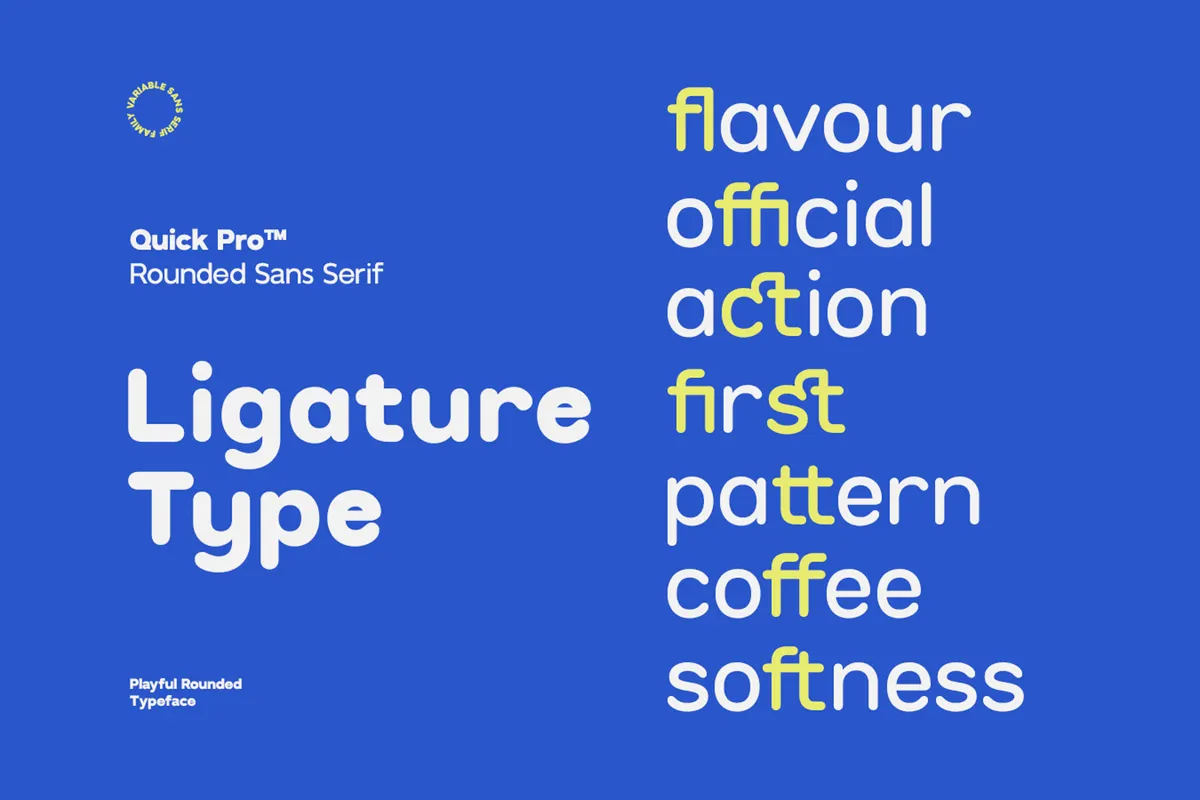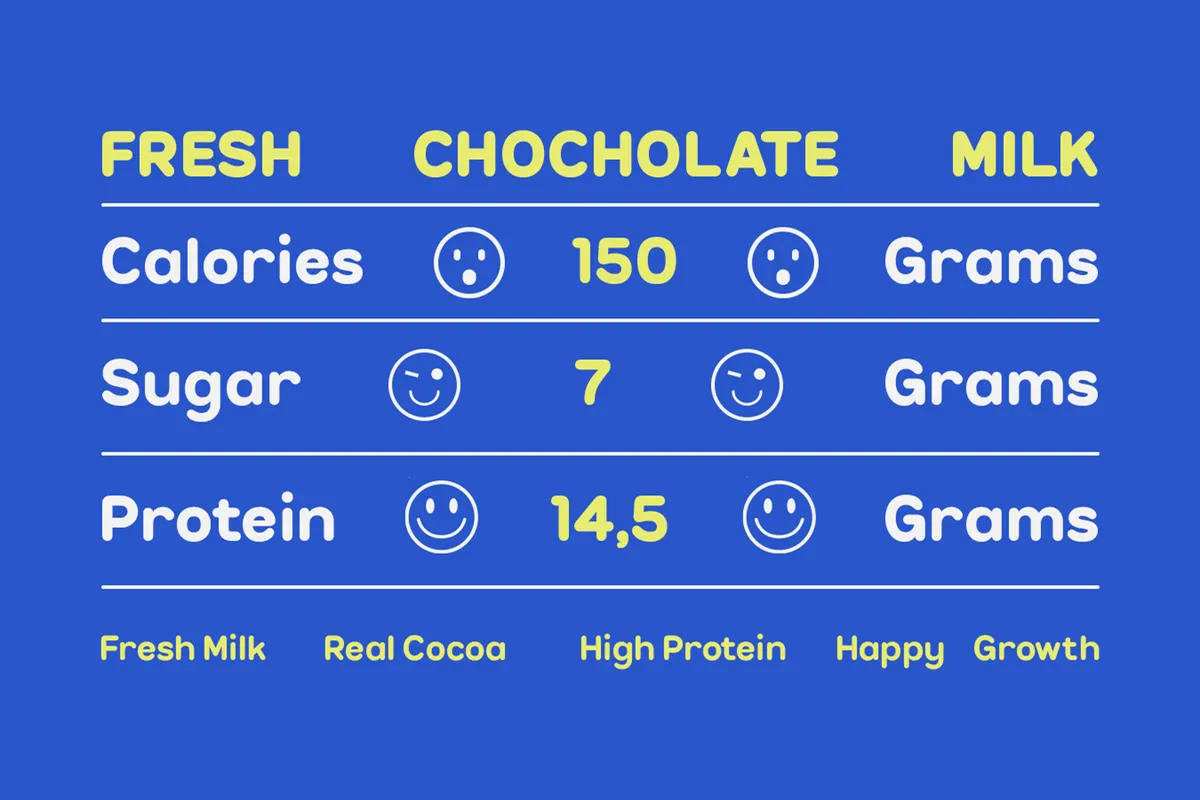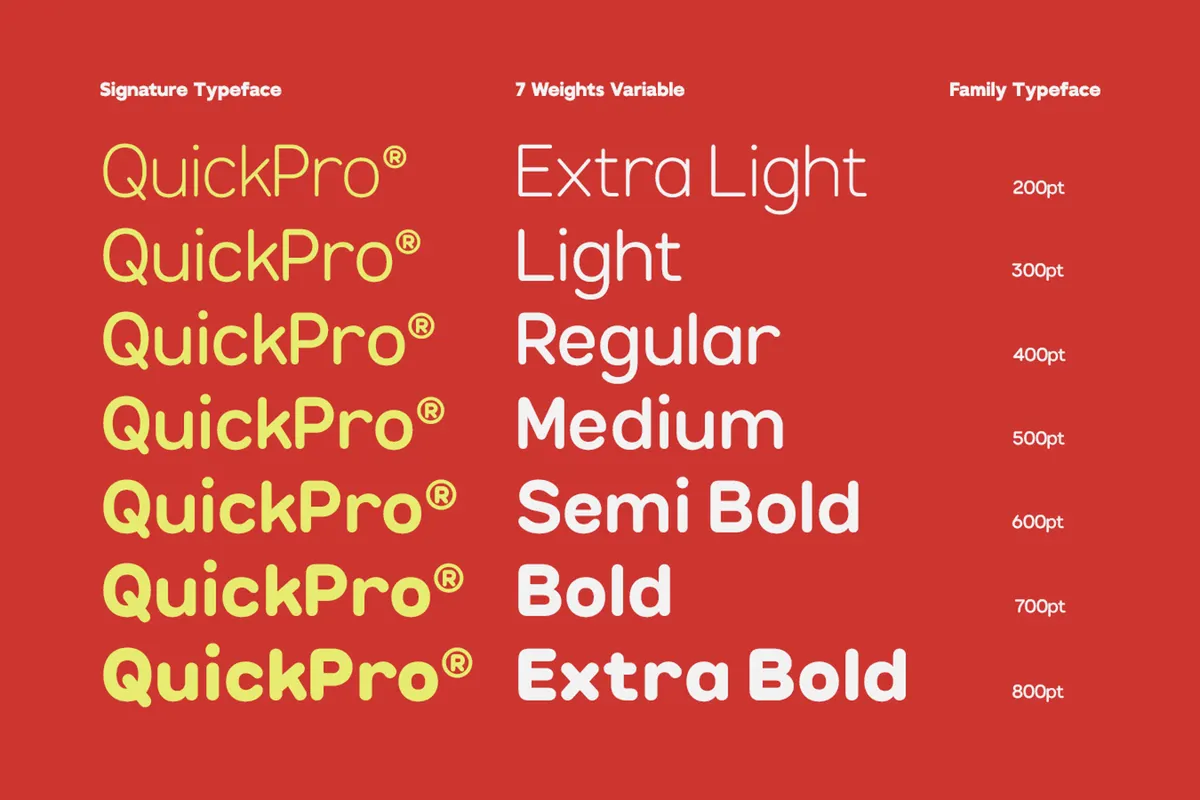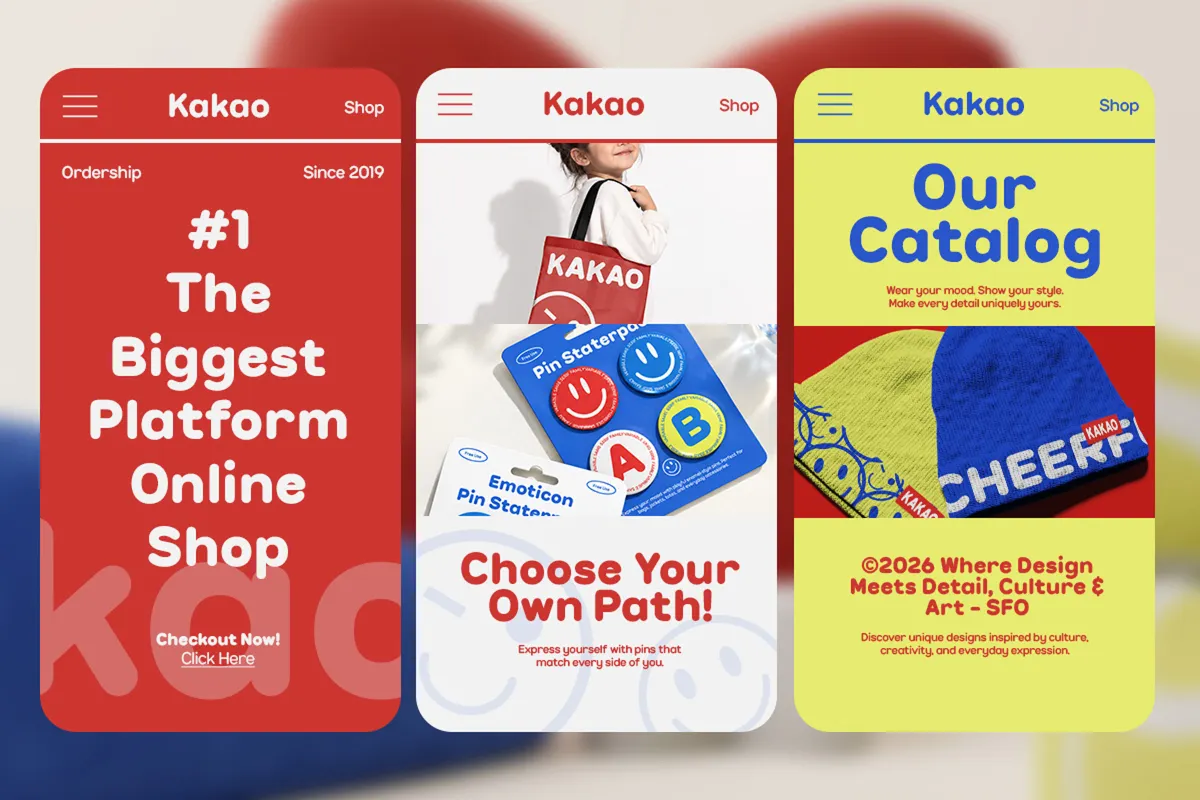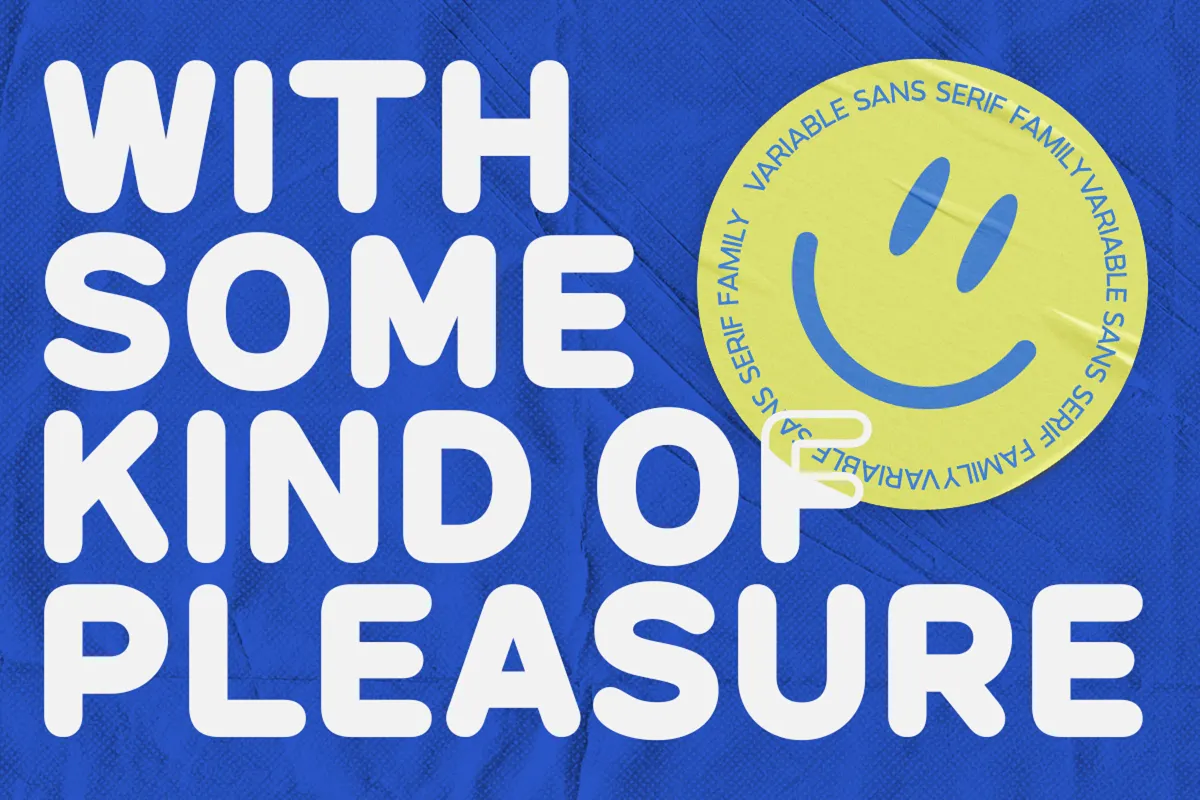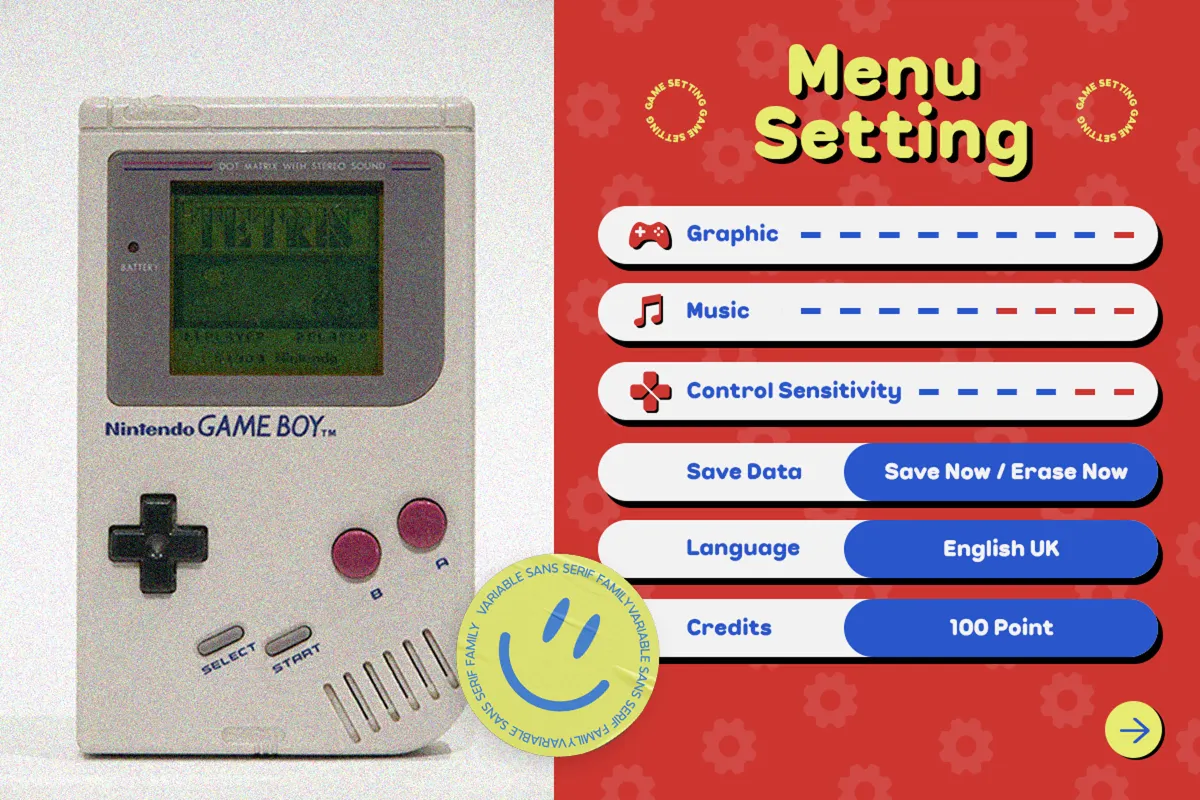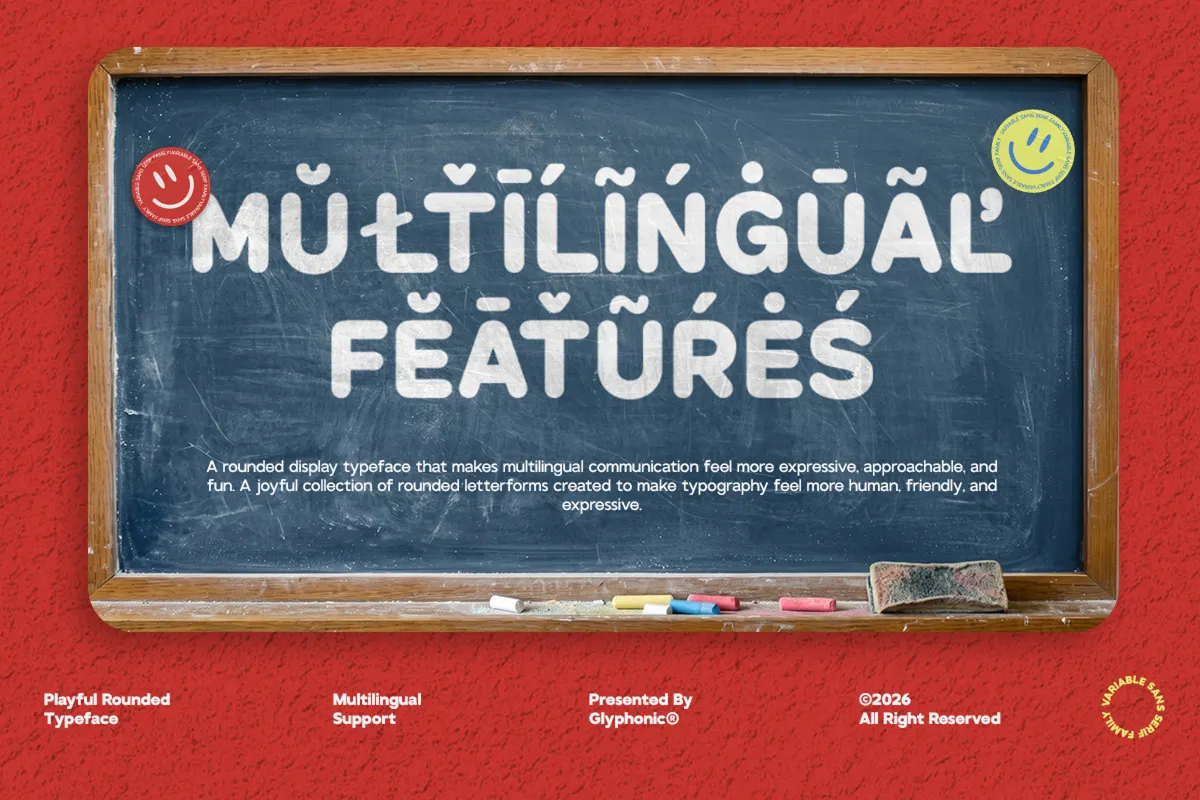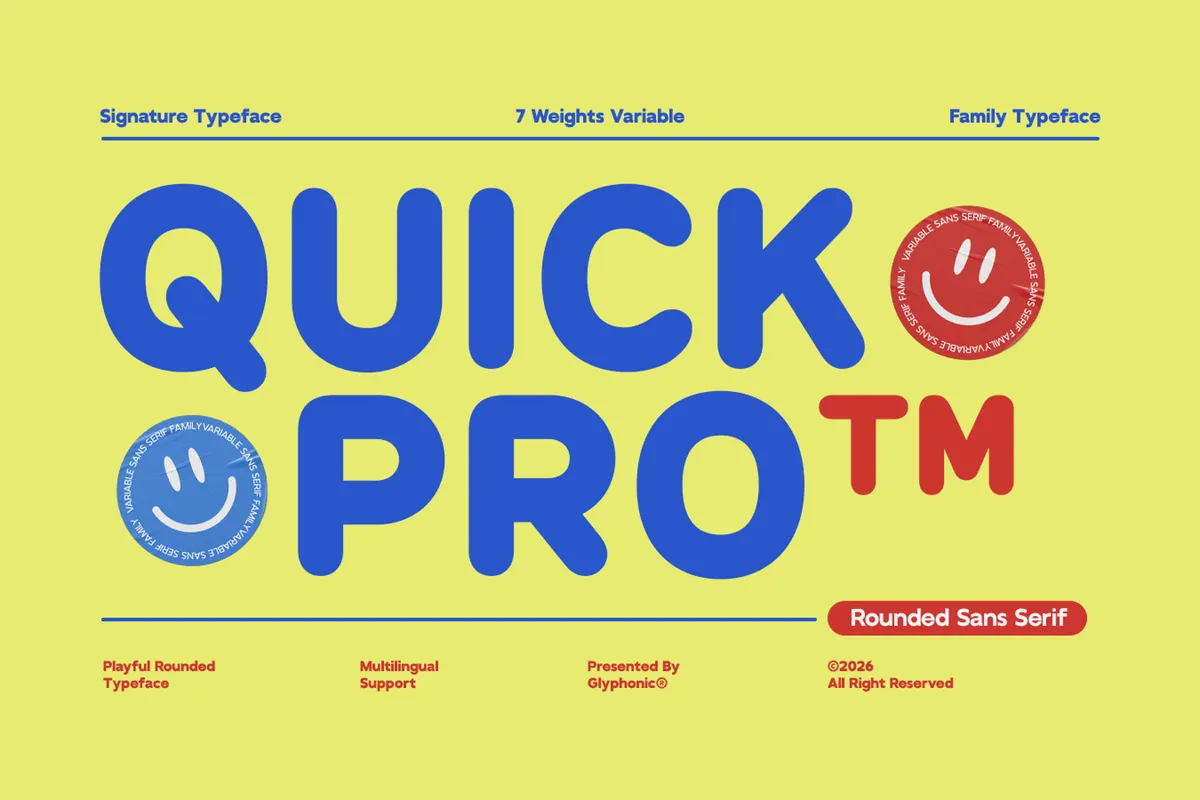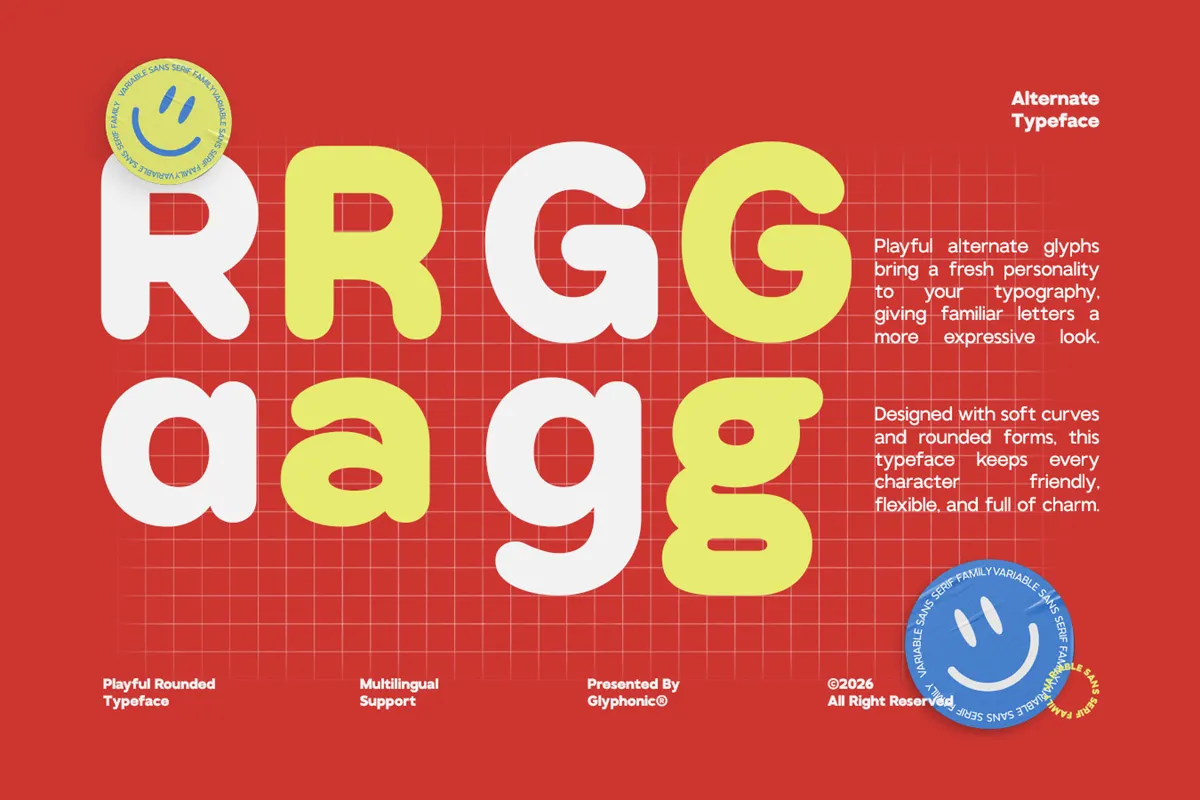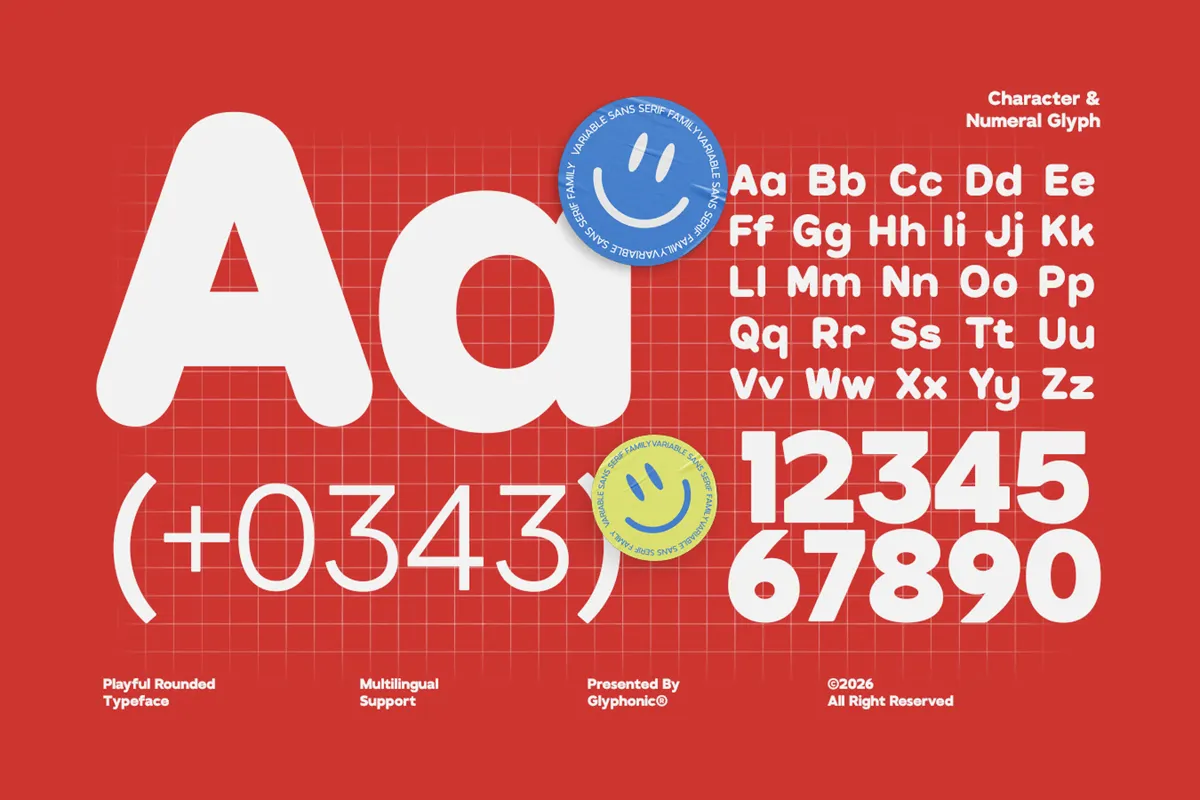
GC Quick Pro - Rounded Sans Family
GC Quick Pro is a rounded sans serif font with every terminal cut as a half circle and bowls drawn close to true circles, so the letters look friendly from a distance and hold together at text size. Alternates for G, K, Q, R, a, g and y shift it from a tidy sans to something with more bounce.
Seven weights and a variable file from ExtraLight to ExtraBold cover both a nutrition panel and the headline above it. Use it for snack and dairy packaging, kids' apps, game interfaces, online shop banners, café menus, and social campaign posts.
- 7 styles: ExtraLight, Light, Regular, Medium, SemiBold, Bold, ExtraBold;
- variable file with a weight axis;
- uppercase & lowercase;
- numerals, punctuation & symbols;
- 12 ligatures, two stylistic sets and alternates for G, K, Q, R, a, g and y;
- fractions, ordinals and superiors;
- Latin Extended-A, covering Central and Eastern European languages;
- 374 glyphs per style.